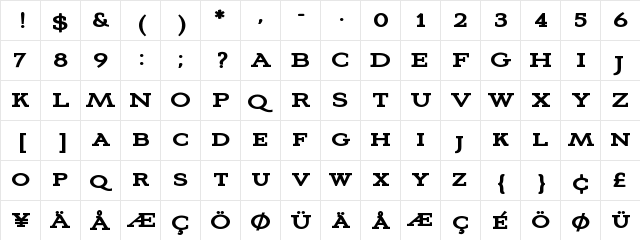
AvianoSlabBold Regular
| Foundry | by Jeremy Dooley |
| Designer | Jeremy Dooley |
Design Context for AvianoSlabBold Typeface
AvianoSlabBold combines the readability of serif typography with the visual weight of a slab construction, resulting in a typeface that feels both authoritative and approachable. Its bold stroke weight gives it real presence on the page.
Works well in editorial design, news publishing, impactful branding, and poster typography.
Pro Tip: Try AvianoSlabBold set tight in headlines for a classic editorial feel. Its slab serifs create strong horizontal rhythm that anchors a page layout.